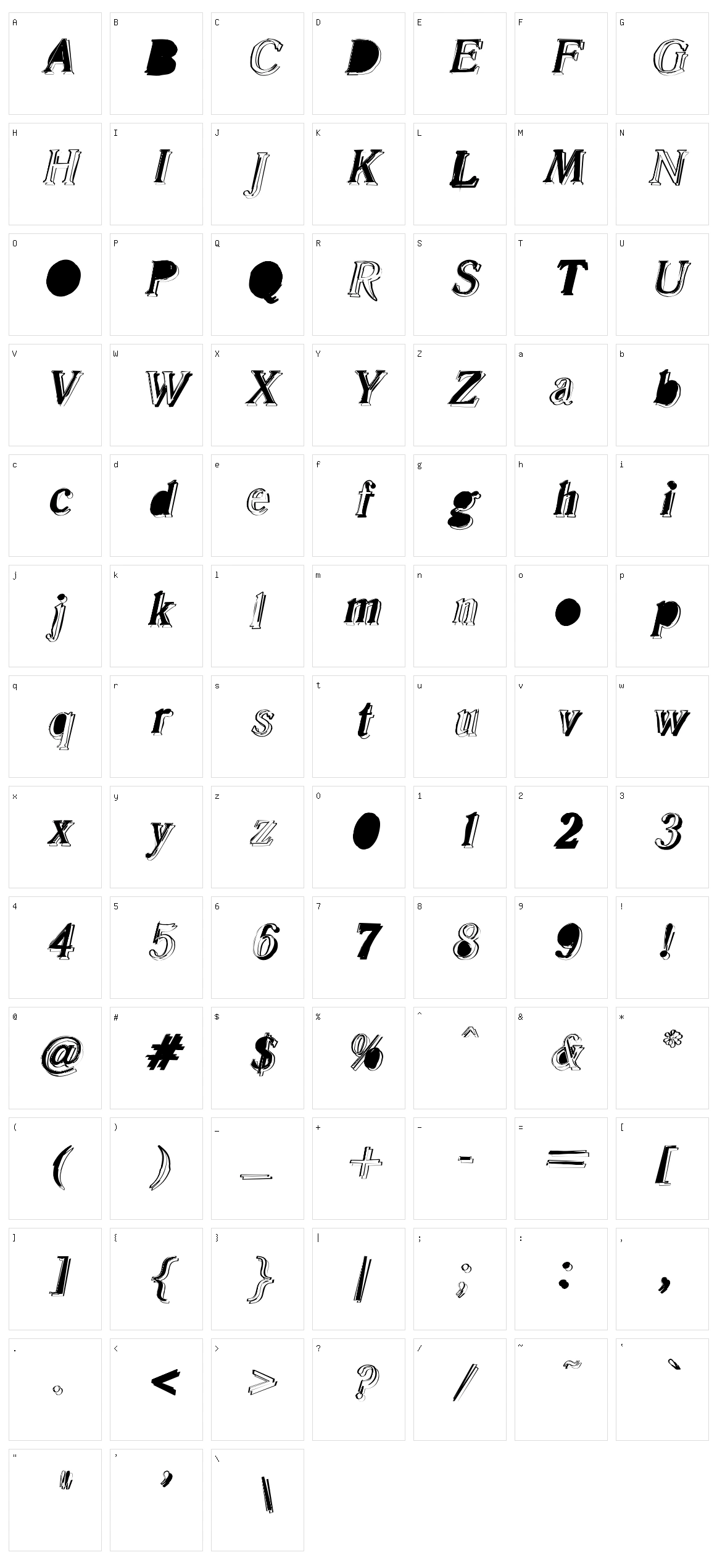
The free font Malle is carefully designed by loosydesign, showcasing a thoughtful balance of creativity and usability and falls under the Distorted font style. When you download the ZIP file, it contains only 189.05 KB of font files, making it lightweight and quick to download. Please review the license details below to understand permitted usage and distribution rights. If license information is not available, we recommend using this font for personal projects only or contacting the author directly for commercial usage permissions.